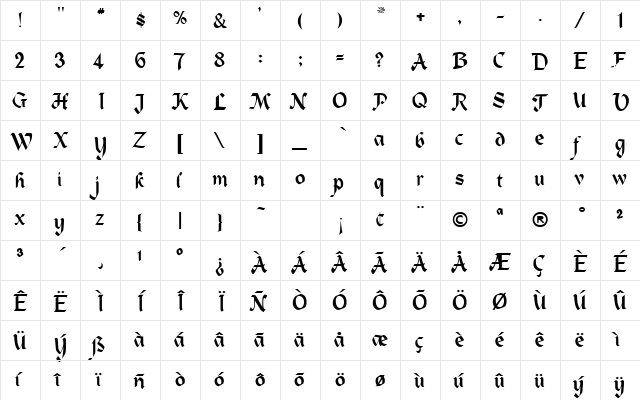
Heidelstein Normal
Design Context for Heidelstein Typeface
Heidelstein takes a measured approach to typography — its balanced proportions and neutral character make it a reliable workhorse for both digital and print work.